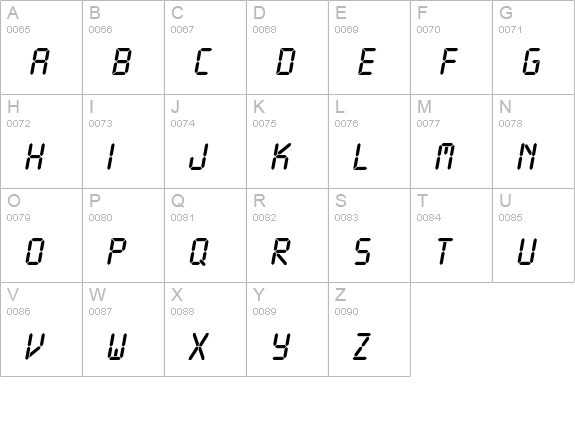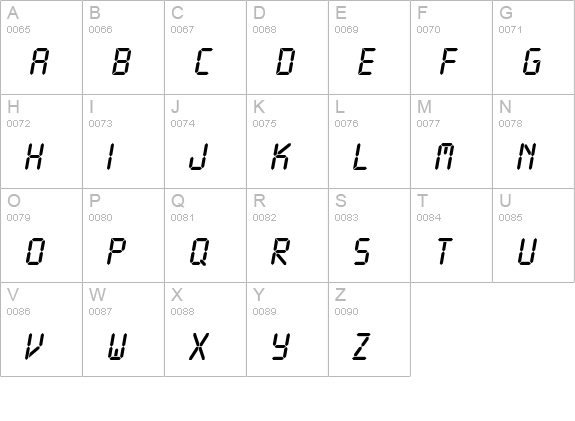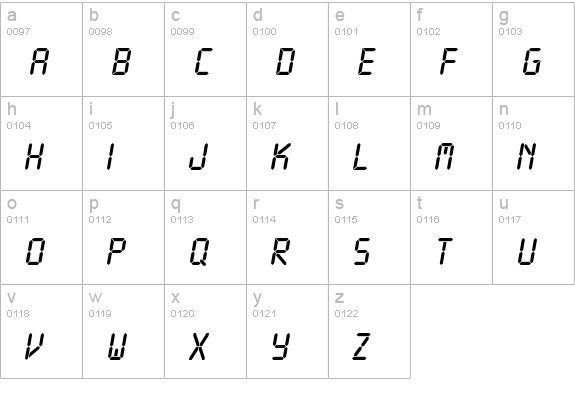
LCD Std is a modern and sleek font that exudes a sense of professionalism and sophistication. With its clean lines and crisp edges, this font is perfect for any project that requires a contemporary and stylish look. LCD Std is a versatile font that can be used for a wide range of purposes, whether it's for a website, a logo, or a marketing campaign. What sets LCD Std apart from other fonts is its unique LCD-inspired design. The characters in this font mimic the look of a digital display, giving your text a futuristic and tech-savvy vibe. Whether you're creating a high-tech website or designing an eye-catching brochure, LCD Std is sure to make a lasting impression. One of the best things about LCD Std is that it is free to download. That's right – you can get your hands on this amazing font without spending a dime! Simply visit FontsMarket.com, a trusted source for high-quality fonts, and download LCD Std to start using it in your projects right away. Not only is LCD Std free, but it is also incredibly easy to use. The font comes in a variety of weights and styles, allowing you to customize your text to suit your needs. Whether you want a bold and attention-grabbing headline or a subtle and elegant body text, LCD Std has got you covered. So why wait? Take advantage of this fantastic offer and download LCD Std today. With its sleek design and free availability, this font is a must-have for any designer or creative professional. Don't miss out on the opportunity to enhance your projects with LCD Std – visit FontsMarket.com and get this amazing font now!